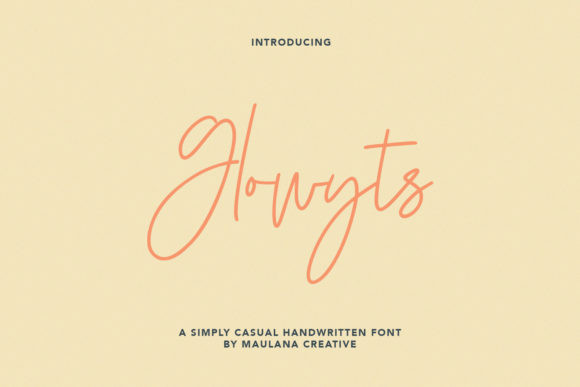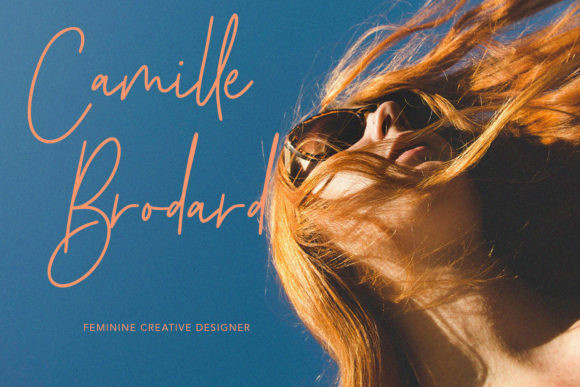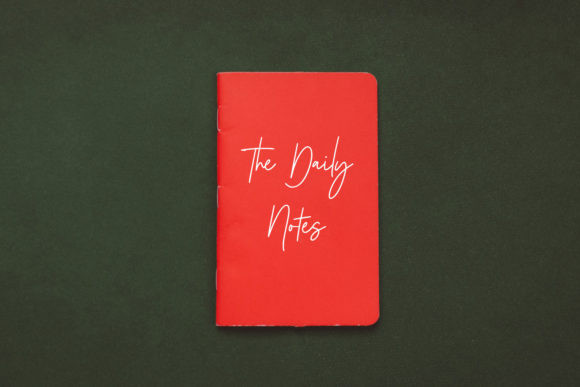
Glowyts Font
Glowyts is a stylish and delicate script font. It has a clean, thin and smooth vibe and it will be a hit for any design that you want to add it to. Add it confidently to your projects, and you will love the results.